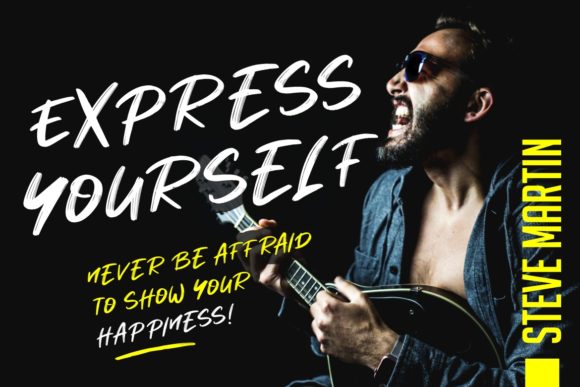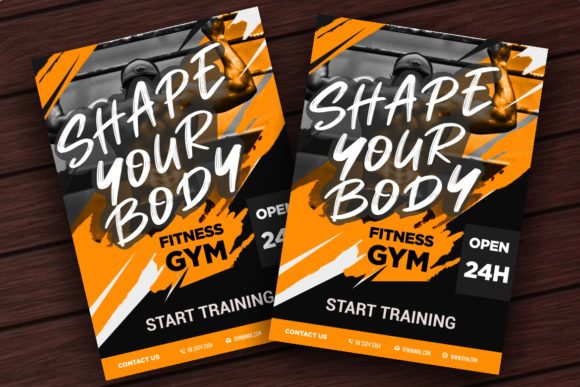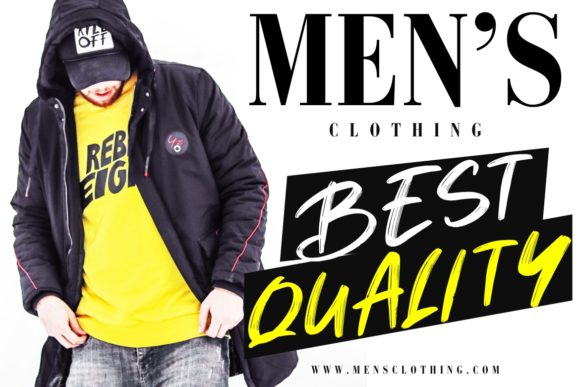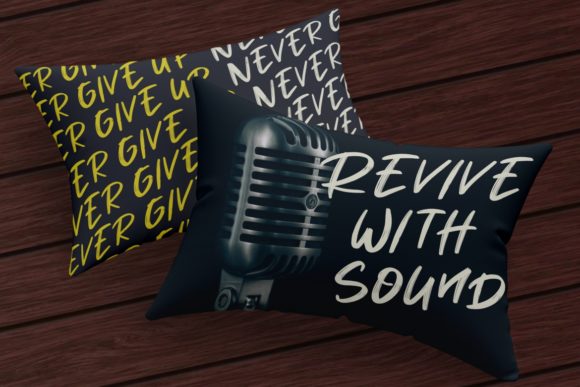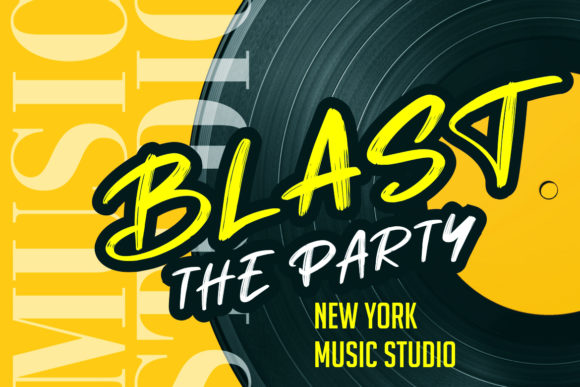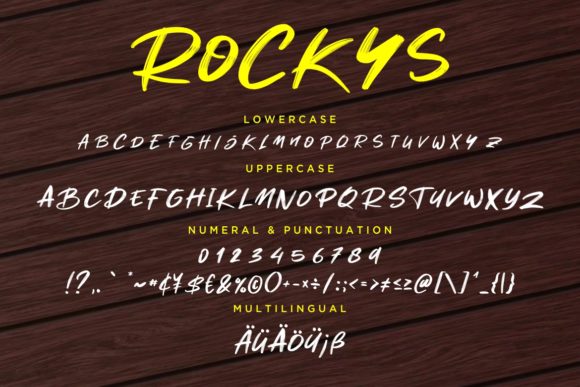
Introduction to Rockys Font
Have you ever found yourself stuck on a creative project, desperately searching for that perfect design element to bring your vision to life? You’re not alone. We’ve all been there – pouring over fonts, colors, and textures, hoping to stumble upon that one game-changing resource that elevates our work to the next level. For designers, the right font can be the difference between a good design and a great one. And that’s where the Rockys Font comes in.
This bold display font was crafted with love and care, using a brush pen to create a unique, high-quality design that’s sure to impress. With its transparent background and versatility, Rockys Font is the perfect design resource for any creative project. Whether you’re working on a graphic novel, a branding campaign, or simply a fun project for social media, this font is sure to bring your ideas to life in a big way.
Key Features of Rockys Font
- High-quality, vector-based design for a crisp and clear appearance, suitable for various creative projects.
- Features a unique, hand-drawn style that adds a touch of personality to any design project.
- Resolution-independent, ensuring that the font remains sharp and clear at any size, from small text to large headings.
Honest Review: Rockys Font
As a designer, I’ve worked with my fair share of fonts, but I have to say that Rockys Font is one that really stood out to me. Its unique style and versatility make it a valuable addition to any creative project.
- ✨ High-quality design: The font is well-crafted and visually appealing, making it perfect for any design project.
- ⚠️ Limited font styles: While the font itself is beautiful, the number of font styles available is somewhat limited, which may be a drawback for designers who like to experiment with different looks.
- ⚠️ Not suitable for all projects: Due to its unique style, Rockys Font may not be the best choice for every project, particularly those that require a more traditional or conservative look.
Overall, I’d give Rockys Font a solid 4 out of 5 stars. While it’s not perfect, its strengths far outweigh its limitations, making it a valuable resource for designers looking to add some creativity to their projects.